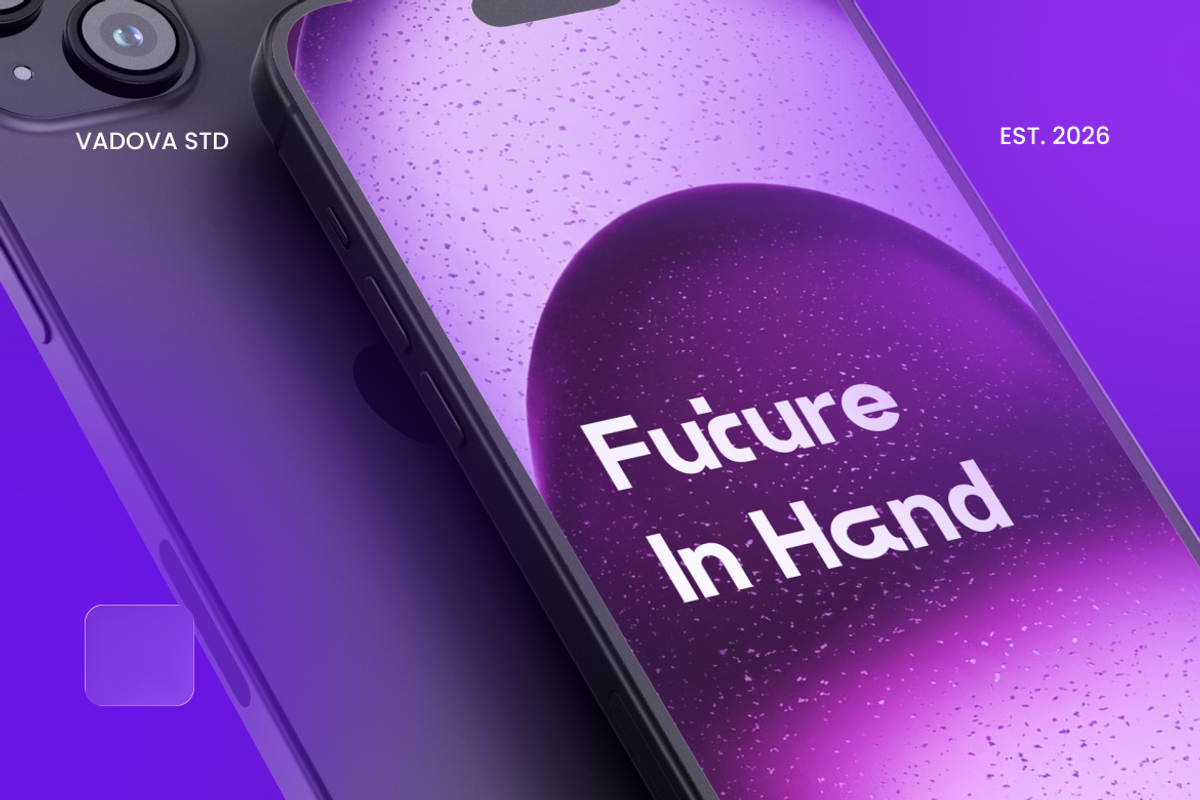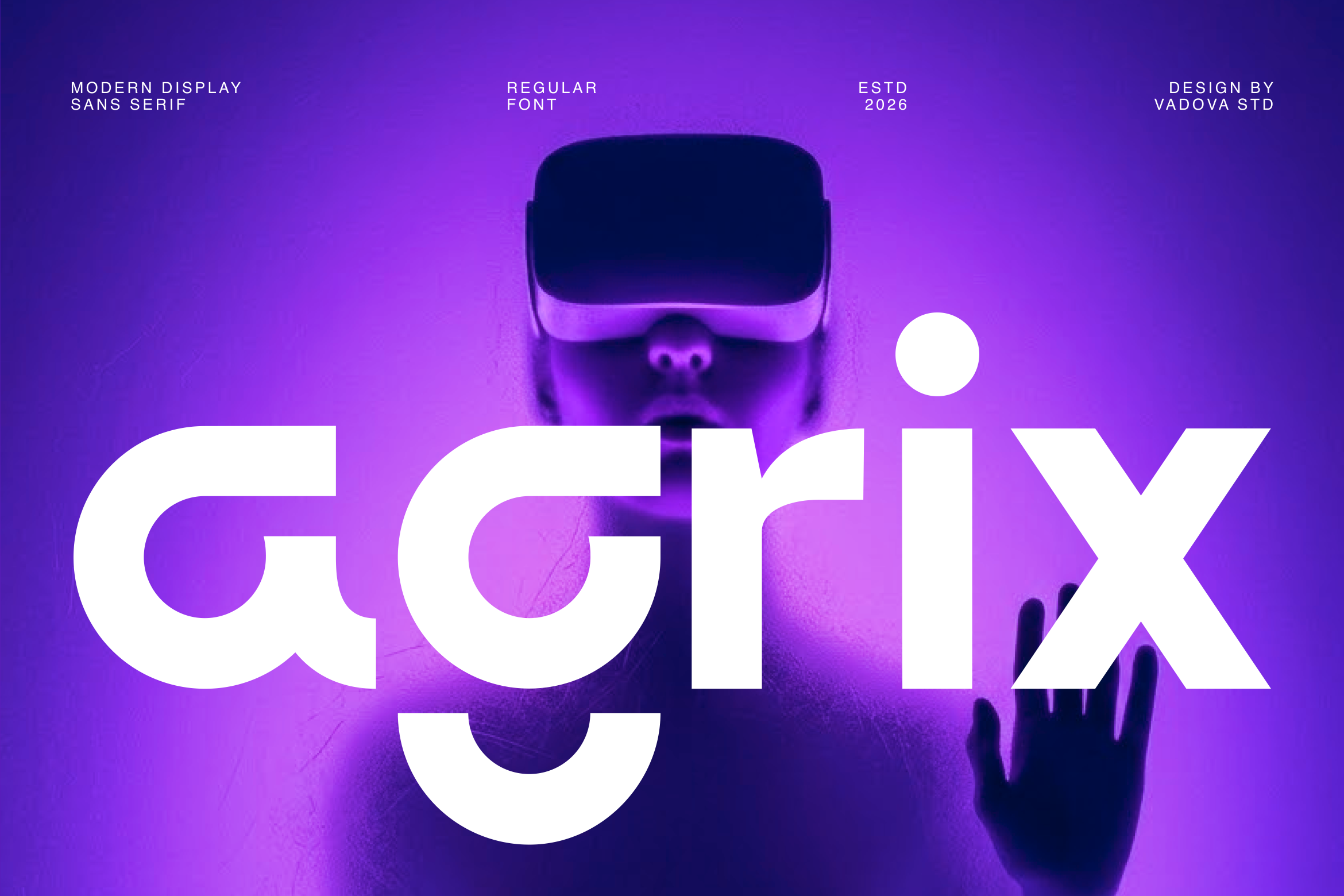
Agrix Modern Display Sans Serif Font
Agrix is a modern futuristic display sans serif font designed with bold geometric forms and clean contemporary structure. Its balanced proportions, smooth curves, and minimal construction create a strong technological presence that feels modern, innovative, and highly legible.
Agrix is highly relevant for technology branding, gaming titles, sci-fi posters, startup logos, futuristic UI design, digital marketing visuals, app interfaces, tech event graphics, modern product branding, and innovation-focused promotional materials that require a bold and futuristic typographic style.
- Bold geometric sans serif construction with a modern futuristic aesthetic
- Clean structural letterforms with minimal detailing for a sleek tech appearance
- Smooth curves combined with sharp terminals for a balanced modern feel
- Consistent stroke weight that maintains clarity in large display settings
- Optimized spacing that enhances readability for headlines and digital interfaces
- Technology brand identities and futuristic startup logos
- UI/UX interfaces for digital platforms, apps, and tech dashboards
- Sci-fi posters, gaming titles, and esports branding
- Tech event promotions, innovation campaigns, and product launches
- Social media graphics and digital marketing visuals with a modern futuristic style